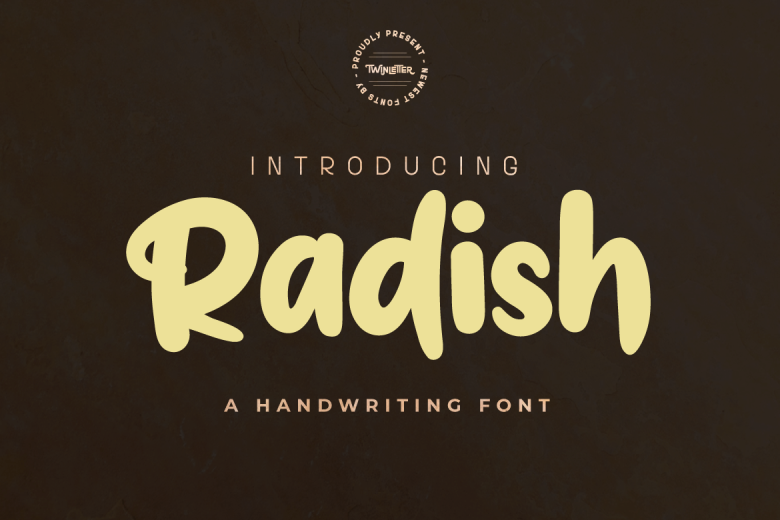
Radish Font
Radish is a relaxed, thick lettered, and flowing handwritten font. It is the best choice for creating eye catching logos, branding and quotes. Every letter has a unique and beautiful touch, which will make your design come alive!